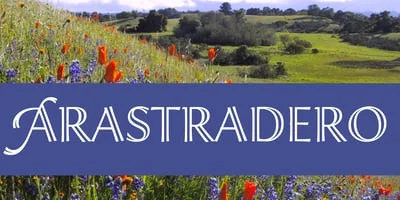
Arastradero Open Font
Arastradero Open Font is perfect for outdoor brands, nature organizations, environmental campaigns, hiking companies, adventure tourism, organic products, and sustainable lifestyle branding. This expansive typeface brings natural openness and outdoor freedom to environmentally conscious design projects.
Arastradero Open Font is exciting because it embodies the spirit of open spaces and natural exploration with its wide, inviting letterforms that convey freedom and accessibility while maintaining exceptional clarity and welcoming appeal across outdoor and environmental applications.
The Arastradero Open Font family includes multiple weights with expanded character widths and open spacing that reflect the vastness of natural landscapes. This spacious collection provides designers with breathable options for creating memorable and environmentally inspired brand experiences.
Arastradero Open Font offers designers access to a thoughtfully crafted typeface that captures the essence of open landscapes and natural exploration. This expansive font features generously spaced letterforms with wide proportions that create immediate associations with outdoor adventure, environmental consciousness, and natural freedom. The typeface showcases open character construction and accessible aesthetics that enhance outdoor communications while maintaining excellent functionality. Its natural character makes it particularly suitable for environmental organizations and outdoor brands that require typography capable of conveying openness, sustainability, and connection with nature. Arastradero Open Font delivers exceptional breathing space for applications where cramped typography feels restrictive for outdoor and environmental messaging. The font's open appeal and natural aesthetic make it an essential tool for designers working on projects that require typographic expression of environmental awareness, outdoor adventure, and natural beauty that resonates with audiences seeking authentic connections with the natural world.